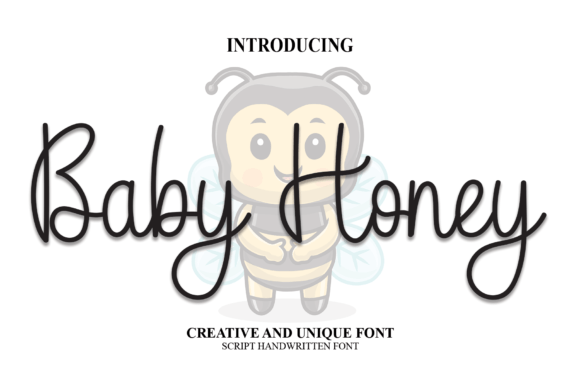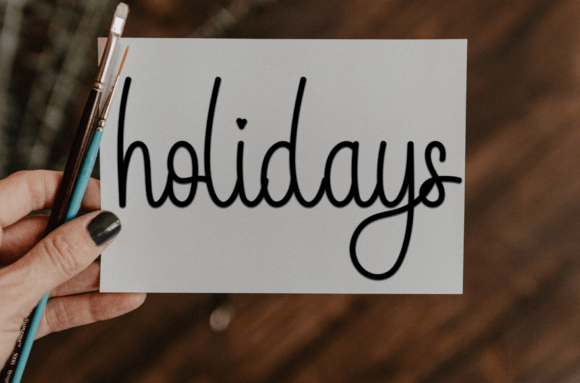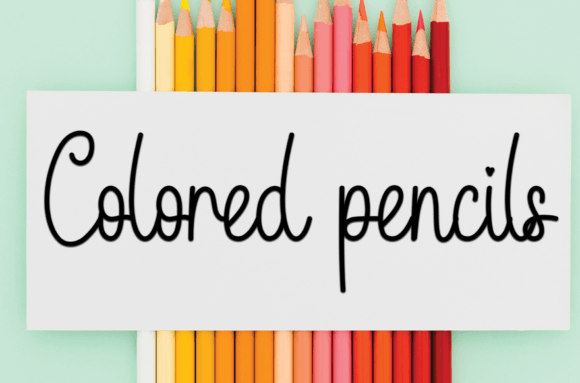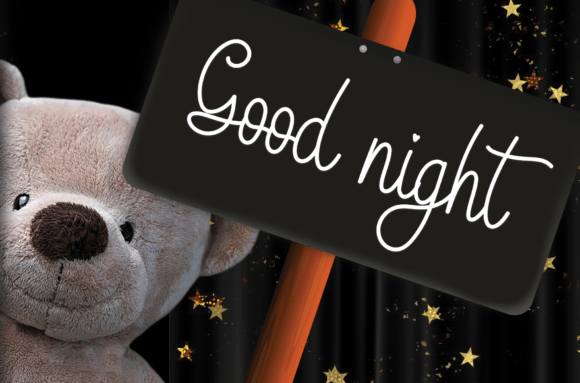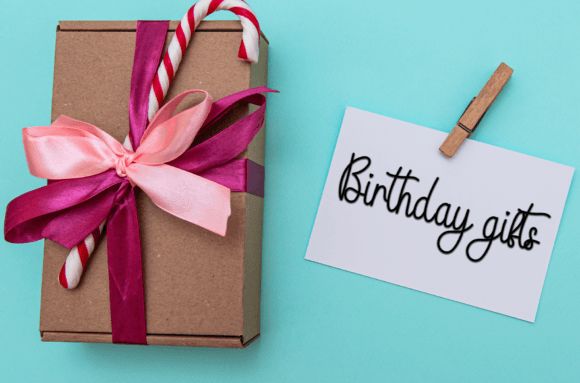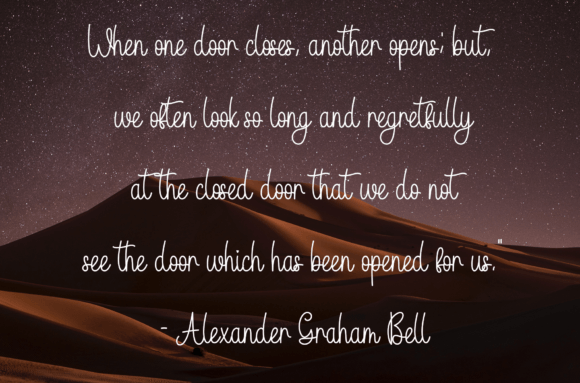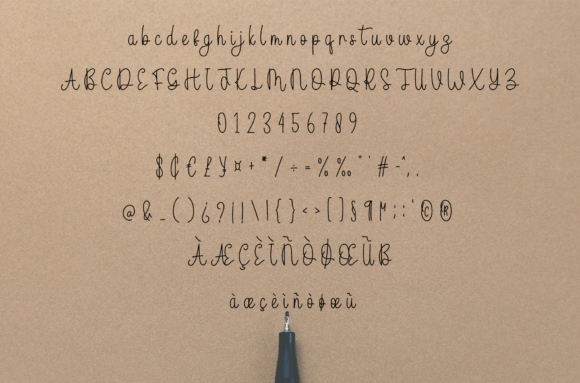
Baby Honey Font
About Baby Honey Font
Baby Honey Font is a sweet and friendly handwritten typeface that adds a fun and relaxed vibe to your creative projects. Its warm and approachable style makes it perfect for wedding invitations, greeting cards, and any design that requires a joyful and heartfelt touch. Baby Honey brings charm and personality, making your work feel inviting and personal.
Fun and Relaxed Handwritten Style
This font features soft, flowing strokes and friendly letterforms that create a cheerful and welcoming atmosphere. Baby Honey balances casual charm with clarity, ensuring your designs look both playful and polished.
Ideal Uses for Baby Honey Font
Baby Honey is ideal for:
• Wedding invitations and save-the-date cards
• Greeting and thank-you cards
• Personal letters and notes
• Event signage and party decorations
• Social media posts and blog graphics
Its joyful and relaxed style fits many occasions and projects.
Why Choose Baby Honey Font?
Designers love Baby Honey for its:
• Sweet, friendly handwritten appearance
• Clear readability and casual charm
• Versatility across print and digital media
These features make Baby Honey a practical and delightful font choice.
Add Joy and Warmth to Your Designs
Typography plays a key role in setting the mood. Baby Honey adds a joyful and heartfelt tone, making your projects feel genuine and inviting. Whether for weddings or casual designs, this font enhances emotional connection.
In conclusion, Baby Honey Font is a sweet and friendly handwritten script perfect for designers wanting to add a joyful and relaxed touch to invitations, cards, and more. Add Baby Honey to your font collection for warm and inviting designs.